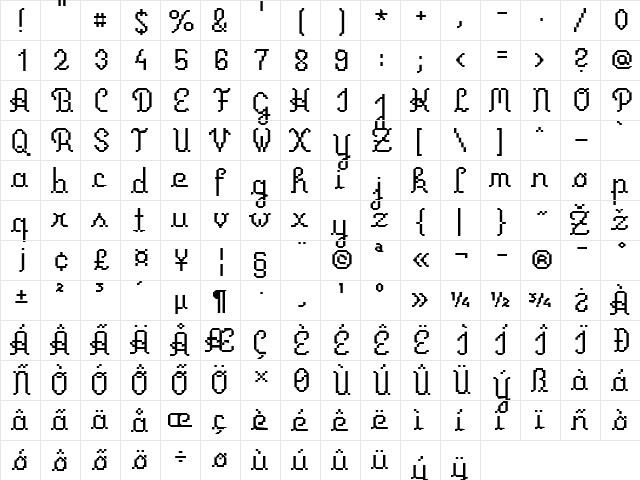
Primus Script Regular
| Designer | dakapu * Katharina Putick |
Design Context for Primus Script Typeface
Primus Script flows with the natural rhythm of handwritten lettering, making it ideal for designs that call for warmth and personal expression.
Font Pairing: Combine Primus Script with a simple geometric sans for maximum contrast — the tension between flowing curves and clean structure is a classic typographic pairing.
Pro Tip: Use Primus Script for short runs of text — names, titles, or taglines. Extended body copy in script faces tires the eye quickly.